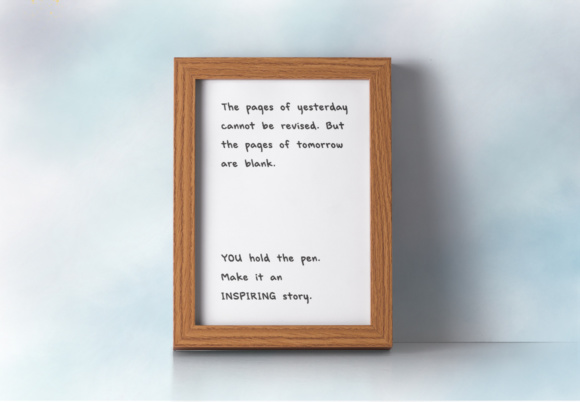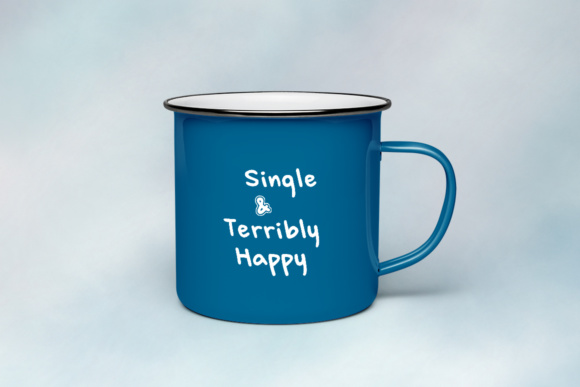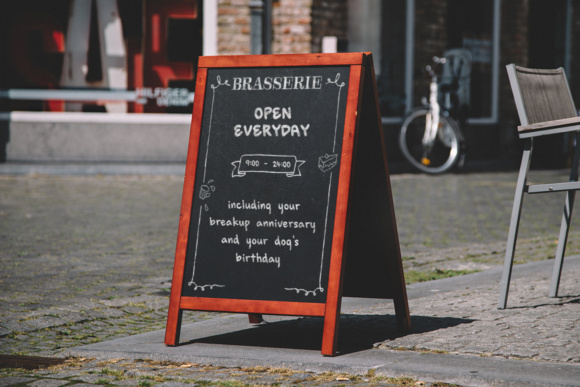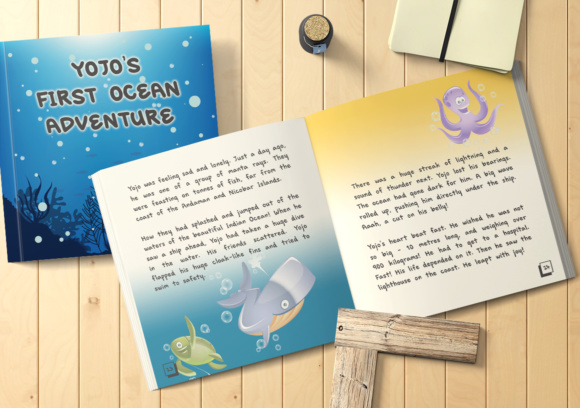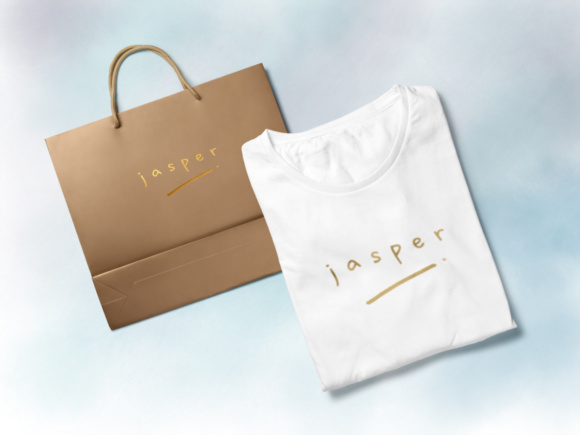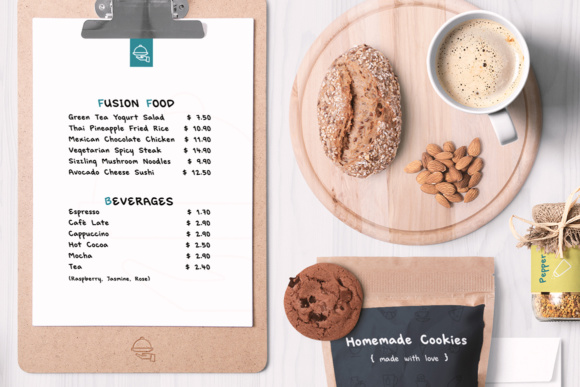
Lefty Author Font
About Lefty Author Font
The Lefty Author is an unique left-handed handwriting font that portrays honesty, directness and simplicity. It’s great for businesses, branding, blogs, personalities that are friendly, organic designs and much more! It can also be easily paired with other fonts. It’s highly legible even when it’s in a tiny size.